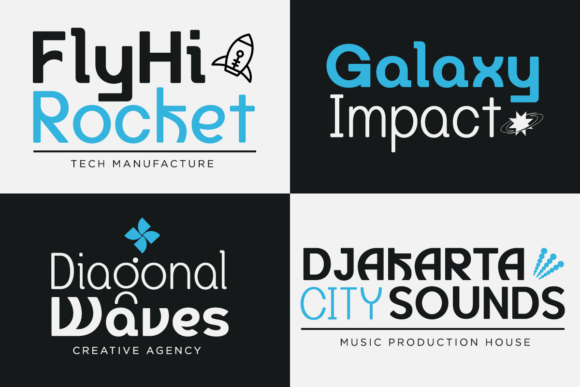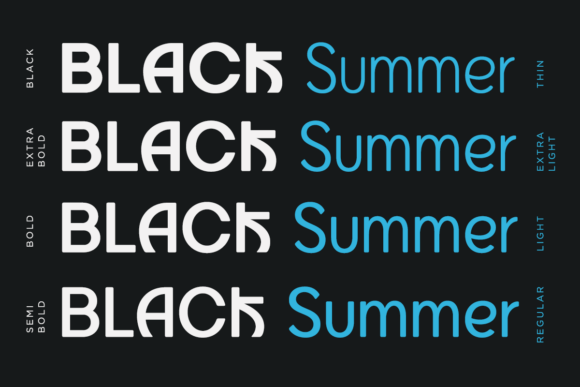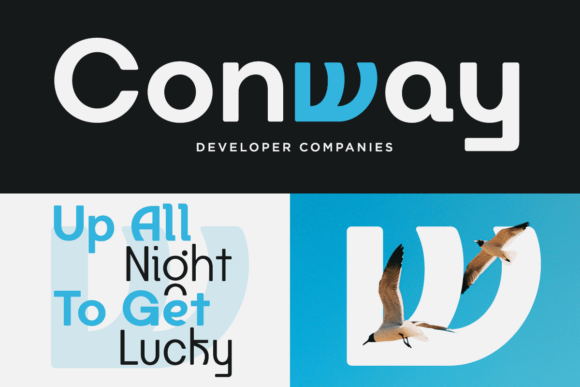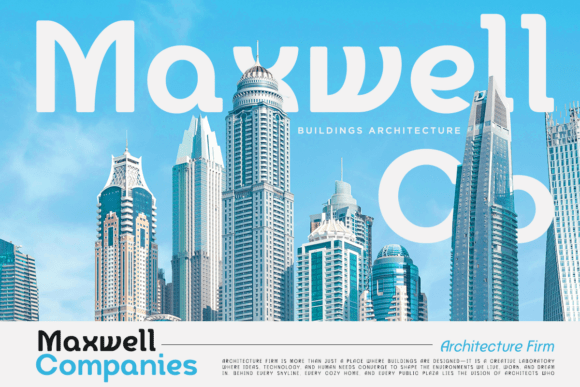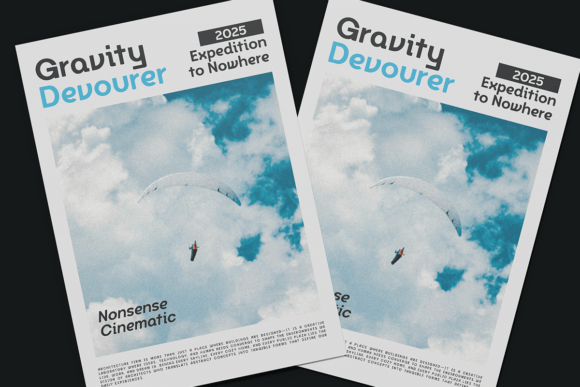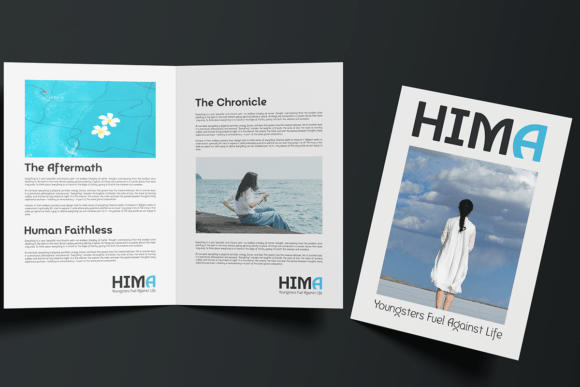
The Font of the Future: Elevating Your Digital Designs
Have you ever found yourself staring at a blank canvas, trying to bring your innovative idea to life? The spark of creativity is a thrilling moment, but it’s often followed by the daunting task of choosing the perfect font. As a designer, you know that the right font can make or break the visual identity of your project. This is where the Axgensans Font comes in – a clean, functional, and innovative variable sans-serif font designed to elevate your digital designs.
With its extensive weight range and availability in Regular and Italic, Axgensans Font offers extreme flexibility, making it perfect for tech startups, apps, digital products, and corporate branding. Its precision-crafted letters promote readability, versatility, and minimalism, providing a sleek and modern look that’s sure to impress. As a designer, you’ll appreciate the Axgensans Font’s ability to deliver performance and visual clarity in one package, helping you create stunning digital experiences that captivate your audience.
Axgensans Font Key Features
- Unique Characteristics: The font features a sans-serif design with a unique blend of geometric and organic elements, resulting in a clean and modern aesthetic.
- Language Support: Axgensans Font includes comprehensive language support for Latin-based languages, including Western, Central, and Eastern European languages.
- Font Styles: The font family includes a range of styles, including Regular, Italic, Bold, and Bold Italic, providing flexibility for various design applications.
Designer Review: Axgensans Font
Overall, I think the Axgensans font has some great qualities that make it a solid choice for certain projects. ✨ One of the things that stands out to me is its modern and sleek aesthetic, making it perfect for contemporary designs. The font is also highly legible, even at smaller font sizes.
- ✨ Modern and sleek aesthetic
- ✨ Highly legible, even at smaller font sizes
- ✨ Wide range of weights and styles available
However, there are some limitations to consider. ⚠️ One of the main issues I have with the font is its lack of versatility. It’s primarily suited for digital use, and it may not be the best choice for print projects. Additionally, the font can feel a bit sterile and lacking in character at times.
- ⚠️ Limited versatility
- ⚠️ May not be the best choice for print projects
- ⚠️ Can feel sterile and lacking in character
Overall, I think the Axgensans font is a solid choice for digital projects that require a modern and sleek aesthetic. However, it may not be the best choice for more complex or nuanced designs.
Axgensans Font is commonly used for:
- Body text in designs and documents
- Editorials and publications